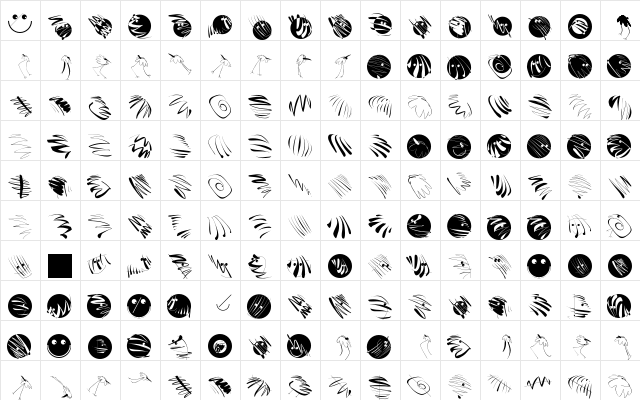
Gestures Regular Font Preview
Gestures Regular
Design Context for Gestures Typeface
Gestures is a composed and adaptable typeface that performs quietly and consistently across a wide range of design contexts.